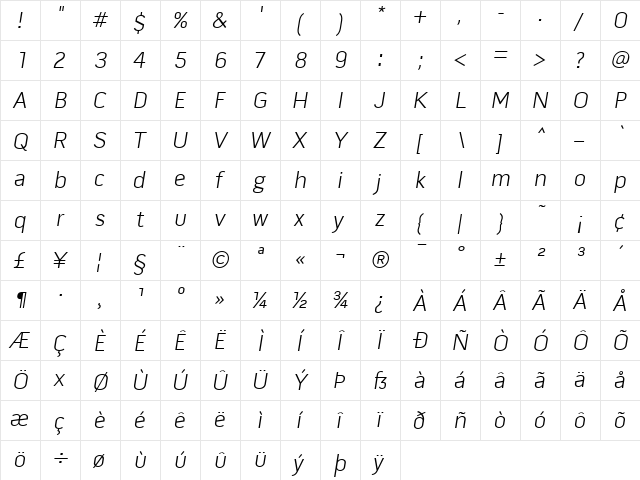
Pill Gothic 600mg Light Obq
| Designer | Christian Robertson |
Design Context for Pill Gothic 600mg Typeface
Pill Gothic 600mg takes a clean, functional approach — its unadorned letterforms prioritise legibility and work reliably across screen and print environments. Its slender proportions lend an understated elegance to any composition.
Ideal for fashion and beauty branding, minimal editorial layouts, and premium digital experiences.
Font Pairing: Pair Pill Gothic 600mg with a medium or bold serif for headlines — the weight contrast creates an elegant, high-end feel.
Pro Tip: Avoid using Pill Gothic 600mg at very small sizes where its slender strokes can disappear. It performs best at medium to large sizes.